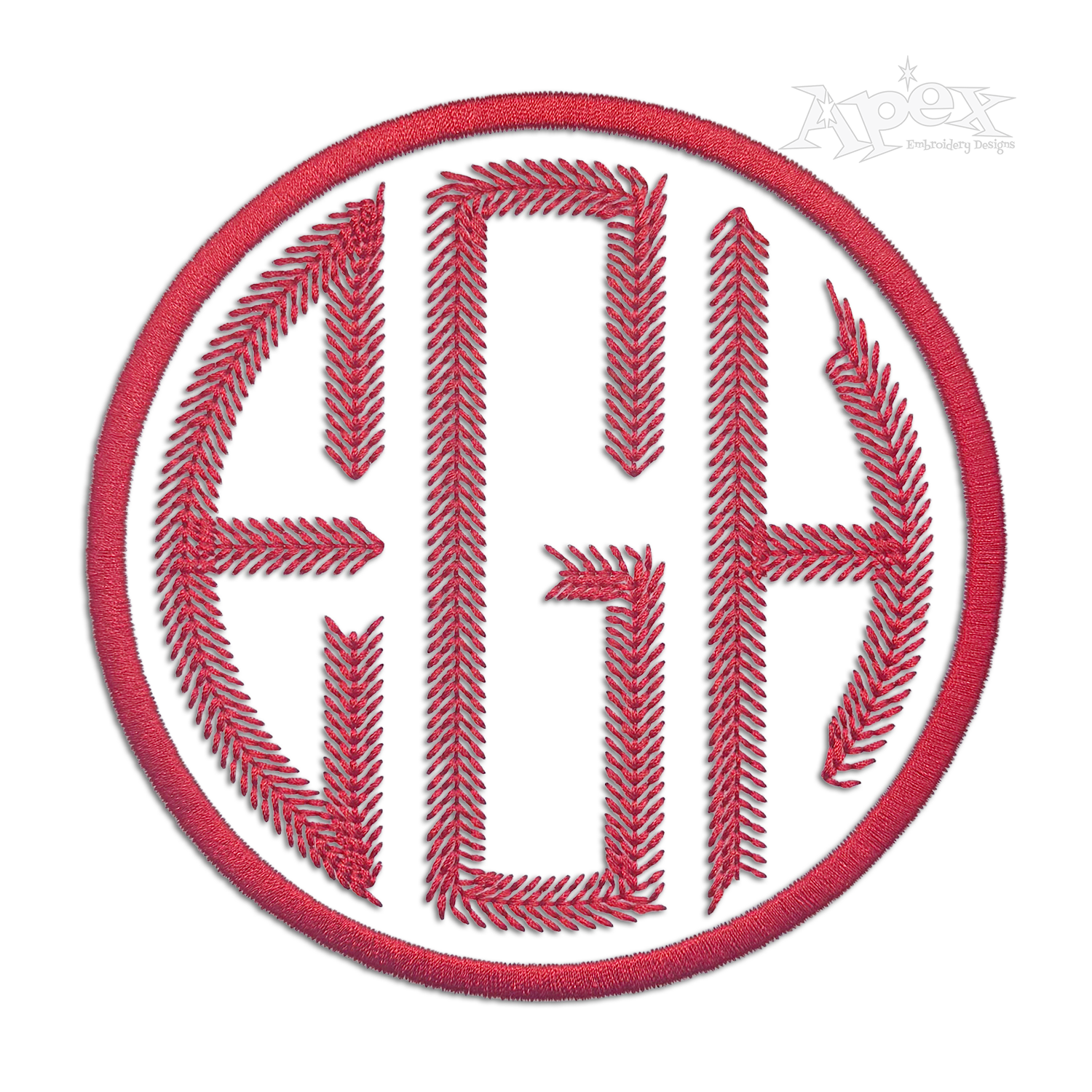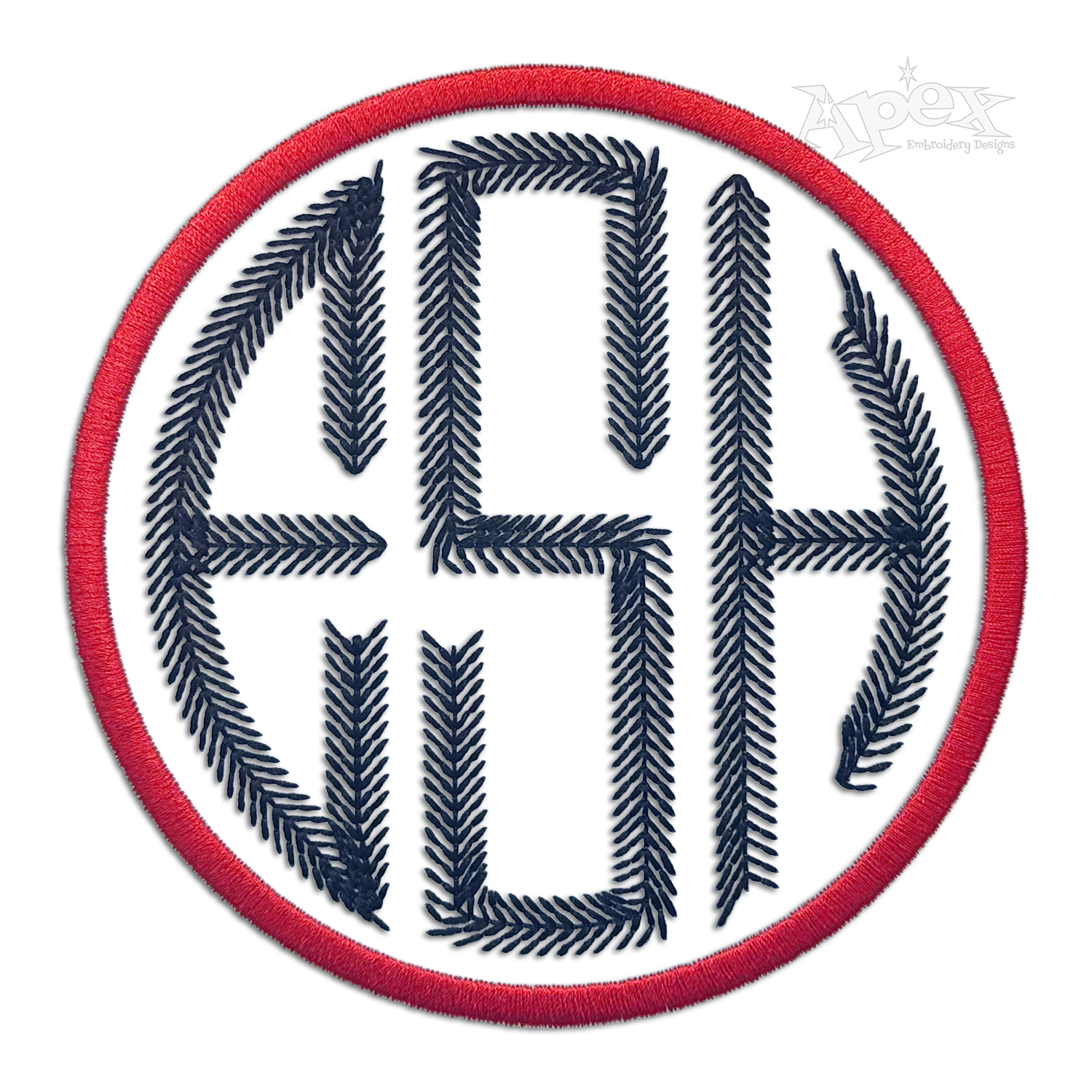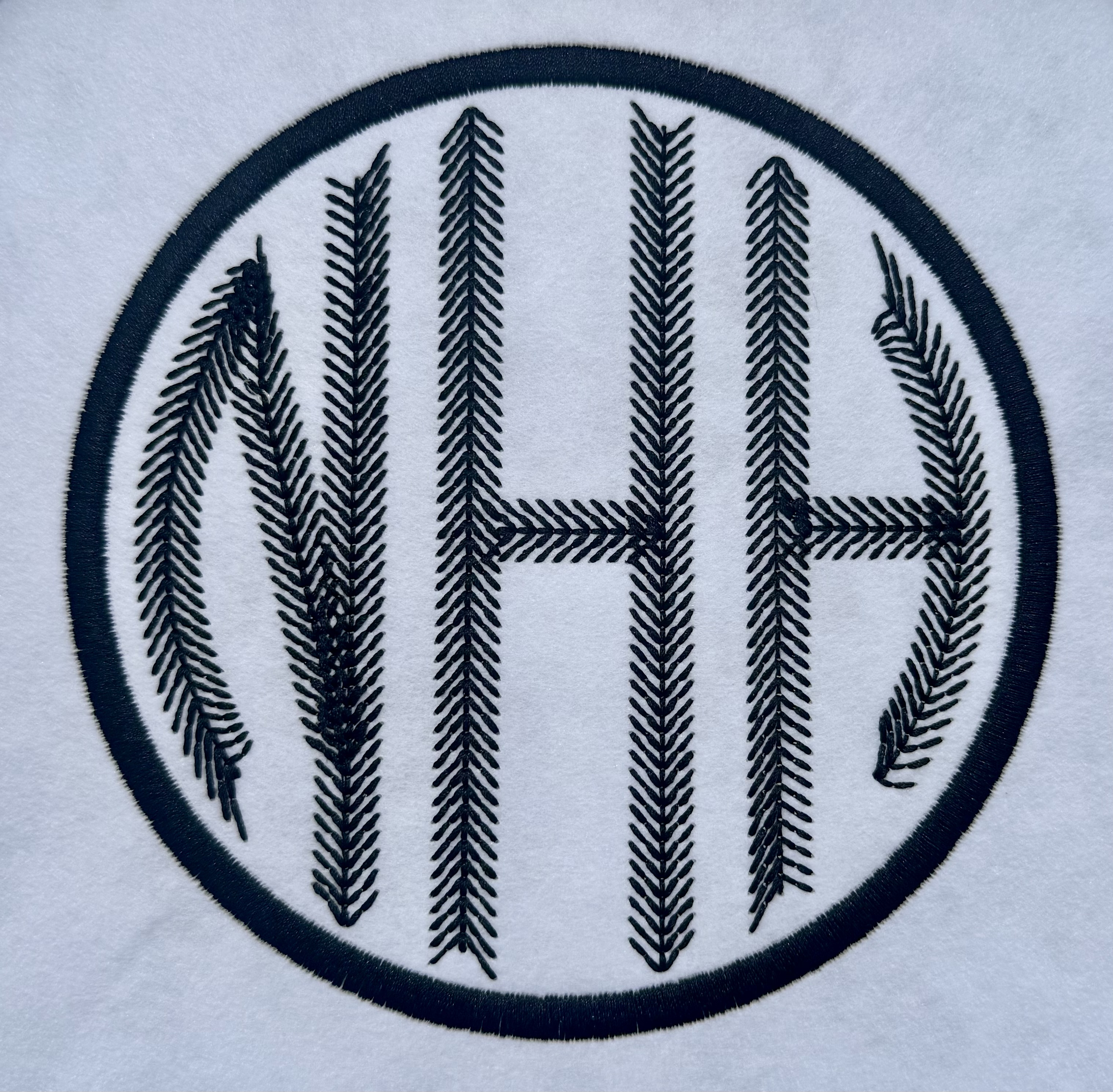
Baseball Virgule Stitches Circle Round Embroidery Font
Create sporty personalized gifts and home décor with this Softball or Baseball Virgule Stitches Full Circle Round Embroidery Font. Featuring a classic tall & thin with a sporty stylish embroidery monogram set is perfect for customizing hats, linens, towels, baby gifts, tote bags, and more.
This embroidery font collection includes complete size sets with uppercase monogram letters designed for creating stunning 3-letter monograms. Each font comes professionally digitized for smooth stitching and excellent embroidery results.
- Baseball or Softball Virgule Stitches Circle Monogram Font
- Sporty for 3-Letter Monograms
- Custom Home Décor Projects